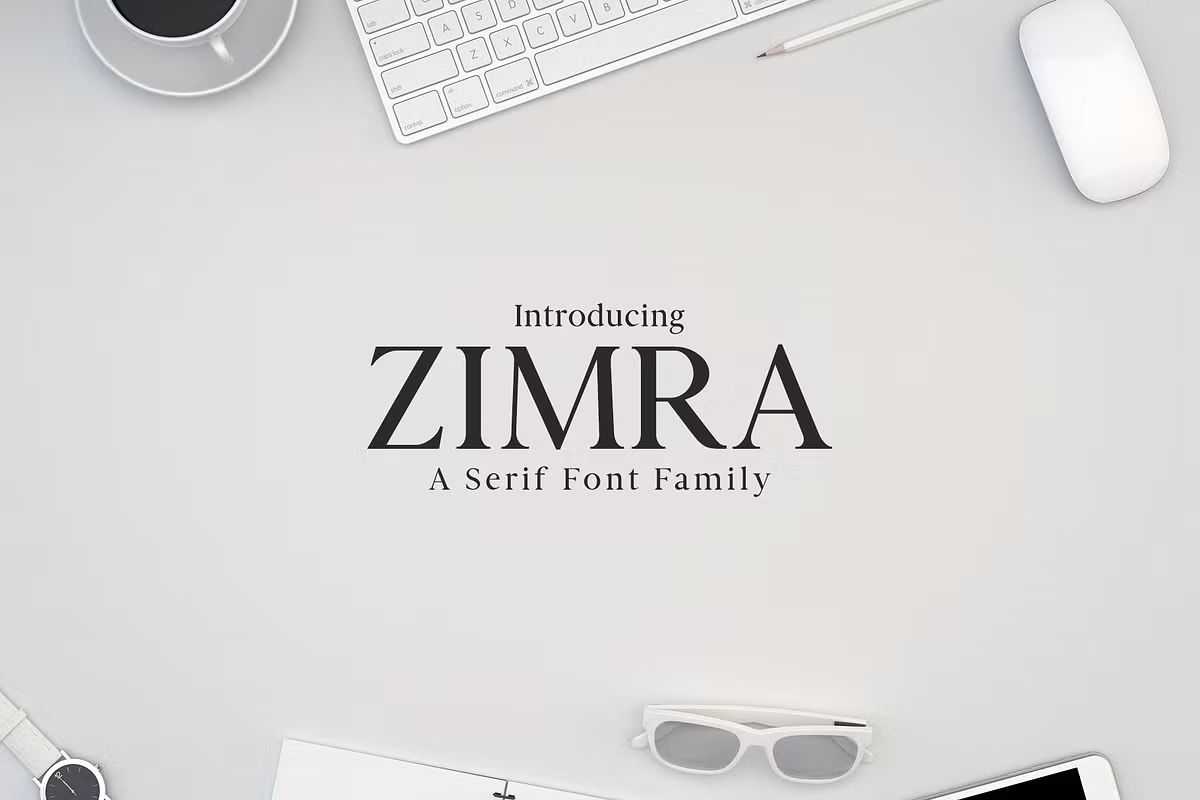
Zimra Serif Fonts Family Pack Free Download is a refined and versatile serif typeface family that blends modern aesthetics with timeless elegance. With multiple weights and styles, Zimra is perfect for branding, editorial layouts, website design, packaging, and luxury print materials. Its balanced proportions and high contrast strokes create a sophisticated and professional appearance.
Designed to offer both beauty and function, Zimra Serif Fonts Family Pack Free Download supports multilingual characters, includes stylish ligatures, and works seamlessly across both print and digital platforms. Whether used for elegant headlines or refined body text, this font family delivers clarity and charm.